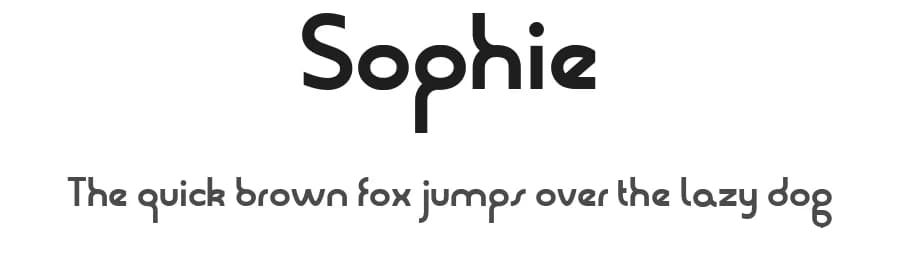
About Sophie Font
"Sophie" Font
Sophie Specifications
| Font Family | Benot Sjholm |
| Style | Sophie |
| Full Name | Sophie |
| PostScript Name | Sophie |
| Designer | Benot Sjholm |
Sophie Font is a versatile sans-serif font that works for both headings and body text. Pair it with a contrasting serif or slab serif font to add visual interest and a clear distinction between titles and body copy.
Sophie Font